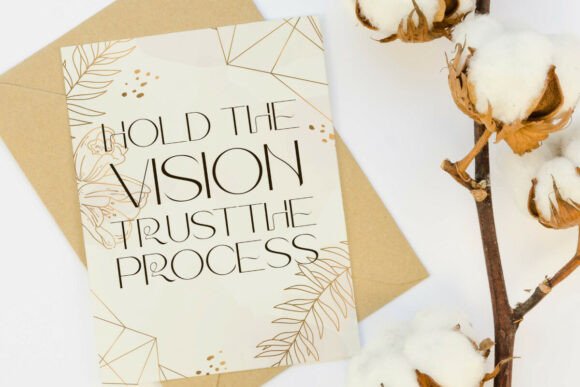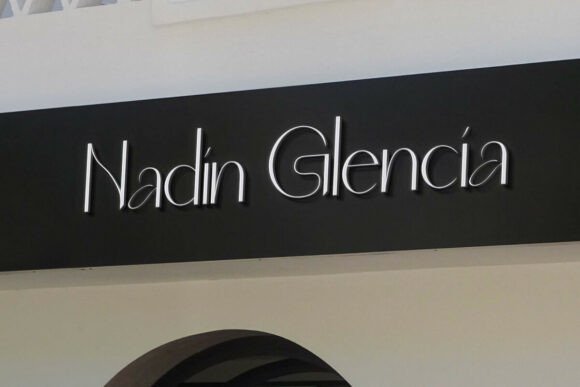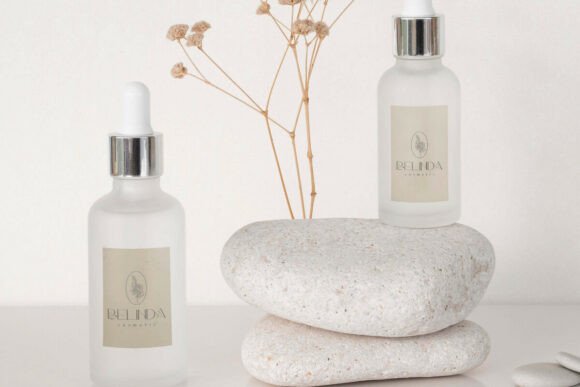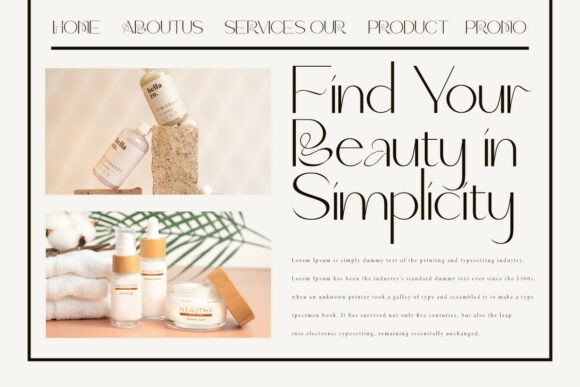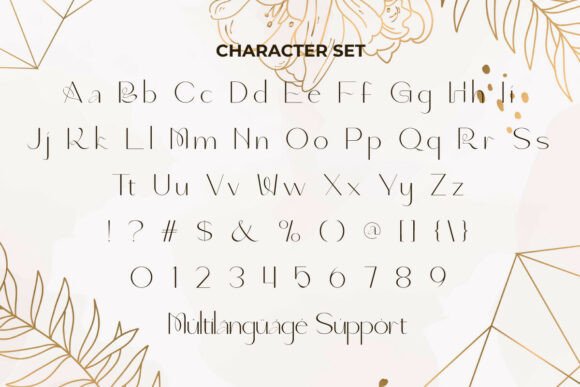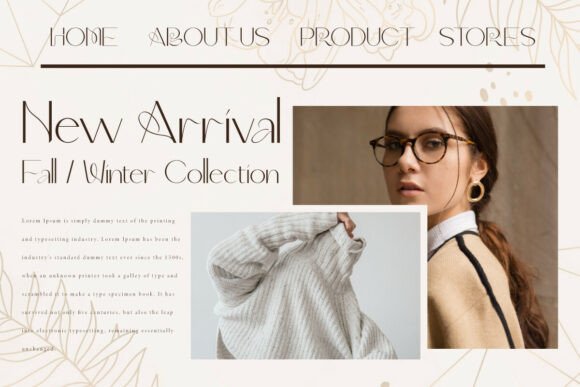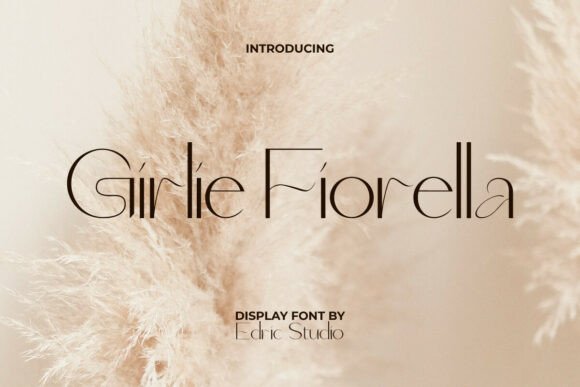
Introducing Girlie Fiorella Font: Elevate Your Designs with Elegance and Sophistication
In the world of typography, a font can make all the difference in setting the tone and aesthetic of your design. If you’re looking for a sophisticated, luxurious display font that exudes elegance and uniqueness, look no further than Girlie Fiorella Font. This beautifully crafted font is designed to add a touch of refinement to any design project, making it perfect for a wide range of applications.
A Font that Stands Out
Girlie Fiorella Font is a masterfully designed display font that boasts unusual curves, giving it a very beautiful, formal, and unique impression. Its elegant design and attention to detail make it a versatile font that can be used across various design projects, from beauty clinics to wedding invitations. Whether you’re working on a logo, poster, or social media graphic, this font is sure to make your design stand out.
Perfect for a Range of Industries
One of the best things about Girlie Fiorella Font is its versatility. Its elegant typography makes it suitable for a wide range of industries, including:
- Beauty clinics and spas
- Botanists and florists
- Boutiques and fashion designers
- Cosmetic and skincare brands
- Interior designers and homeware stores
- Label and printing services
- Publishers and writers
- Restaurants and cafes
- Wedding planners and stationery designers
Whether you’re creating a logo, brochure, or website, Girlie Fiorella Font is sure to add a touch of sophistication and elegance to your design.
Why Choose Girlie Fiorella Font?
So, what makes Girlie Fiorella Font so special? Here are just a few reasons why designers and crafters love this font:
- Handwritten feel: Girlie Fiorella Font has a polished, yet handwritten feel that makes it perfect for handmade brands, small shops, and creative entrepreneurs.
- Elegant and sophisticated: This font exudes elegance and sophistication, making it perfect for high-end brands and luxury products.
- Versatile: Girlie Fiorella Font can be used across a wide range of design projects, from logos and posters to social media graphics and kids’ apparel.
- Attention to detail: The font’s unusual curves and elegant design make it a standout in any design.
How to Use Girlie Fiorella Font
Girlie Fiorella Font is easy to use and can be incorporated into a variety of design projects. Here are a few ideas to get you started:
- Invitations and stationery: Add a touch of elegance to your wedding invitations, party invites, or business stationery.
- Logos and branding: Use Girlie Fiorella Font to create a sophisticated logo or brand identity for your business.
- Social media graphics: Add a touch of personality to your social media graphics, such as Instagram posts or Facebook banners.
- Kids’ apparel: Use Girlie Fiorella Font to create adorable and stylish kids’ apparel, such as t-shirts or tote bags.
In conclusion, Girlie Fiorella Font is a sophisticated, luxurious display font that is perfect for designers and crafters looking to add a touch of elegance and sophistication to their designs. Its versatility, elegant design, and attention to detail make it a standout in any design. Whether you’re working on a logo, poster, or social media graphic, Girlie Fiorella Font is sure to make your design shine.